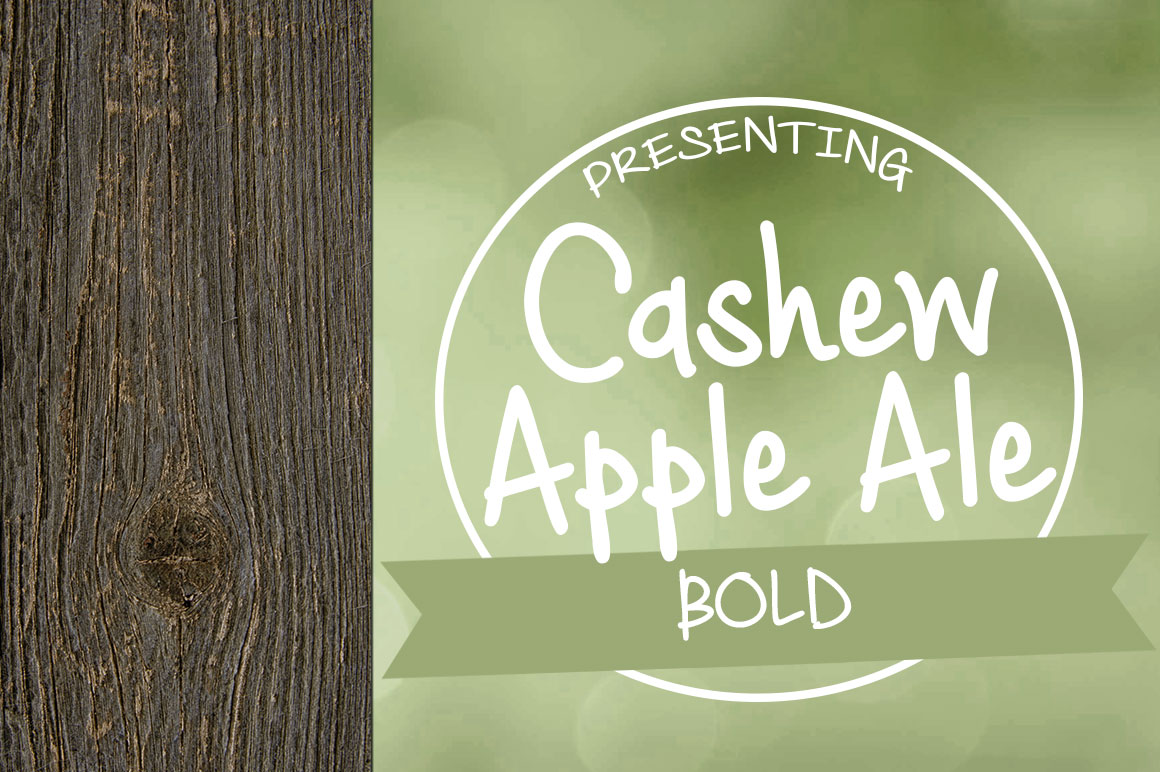
Cashew Apple Ale Bold Font
About Cashew Apple Ale Bold Font
Cashew Apple Ale in Bold is a casual, handwritten font. Pretty, but legible! Great for both headlines and content.